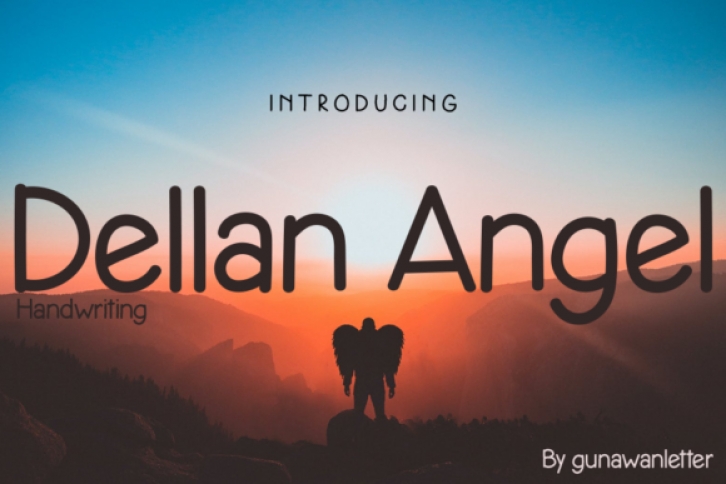
Dellan Angel is a cute and casual display font with a very friendly feel. Whether you are looking for fonts for Instagram or calling a graphic script for a DIY project, this font will turn any creative idea into a true work of art!